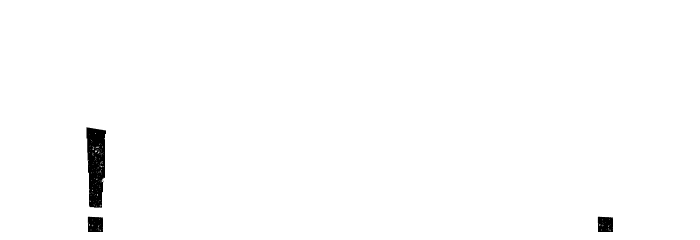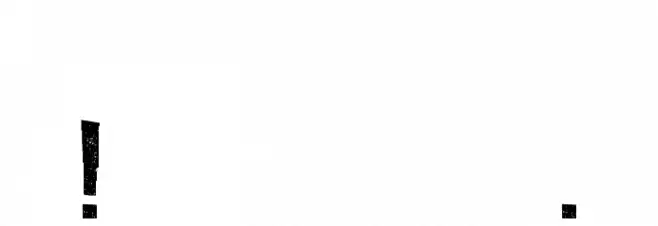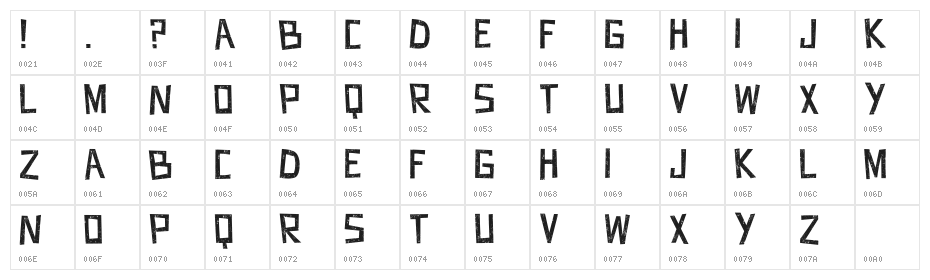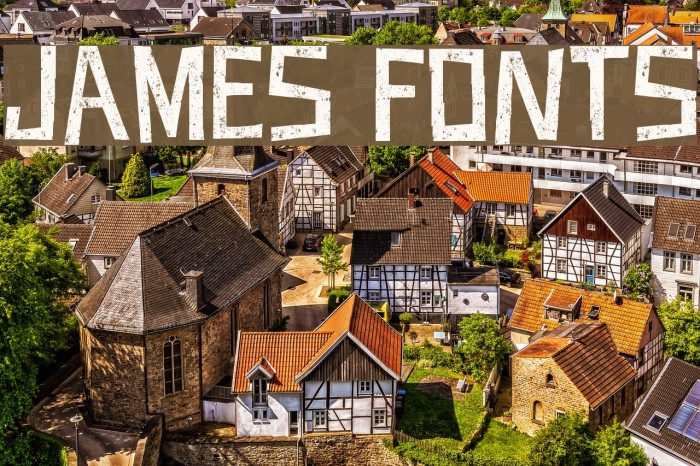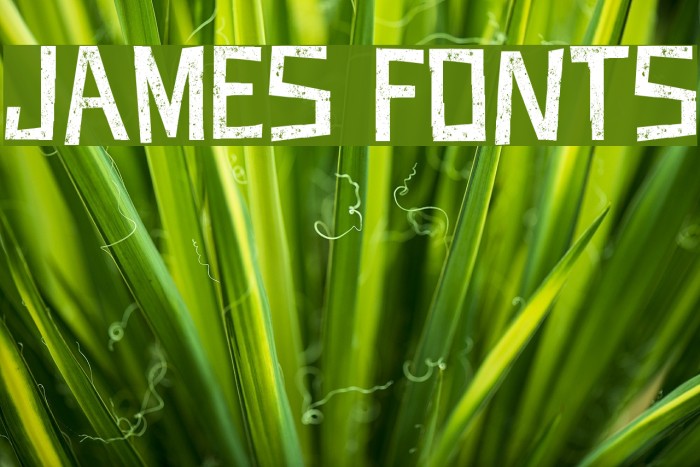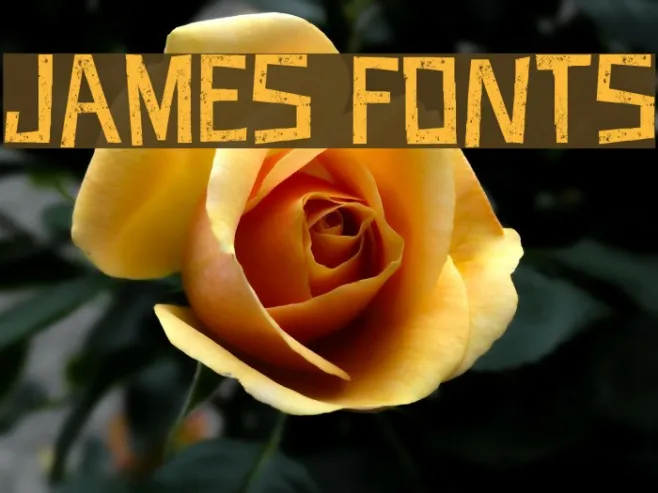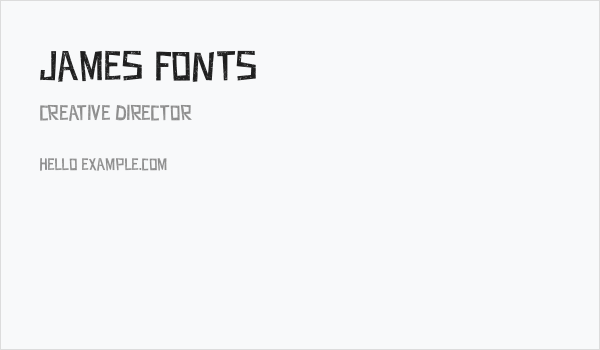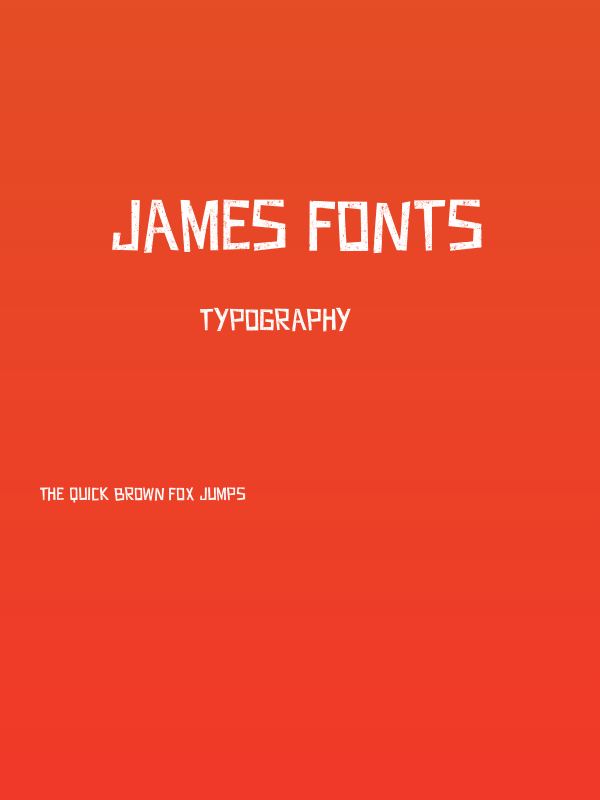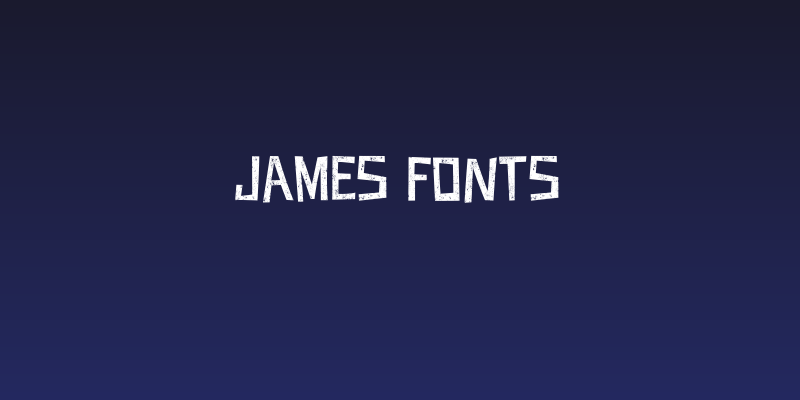
JAMES FONTS Font
JAMES FONTS Description
This font features a bold, distressed style with a rough texture that gives it a grunge or urban feel. The characters are uppercase only, with a slightly irregular form that adds to its edgy appearance. The letters are wide and have a blocky structure, making them stand out prominently. The distressed effect is consistent across all characters, adding a sense of depth and character. This font is ideal for designs that require a bold statement, such as posters, album covers, or any project needing a gritty, raw aesthetic.
| Overall Style | Grunge, Urban |
| Proposed Projects | Ideal for posters, album covers, streetwear branding, or any project needing a gritty, urban aesthetic. |